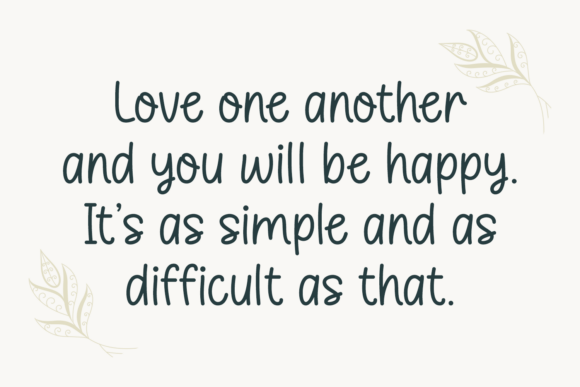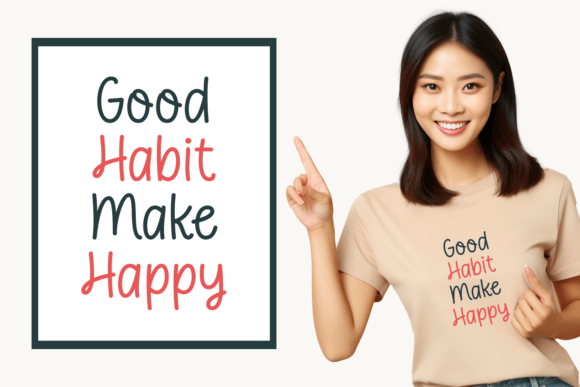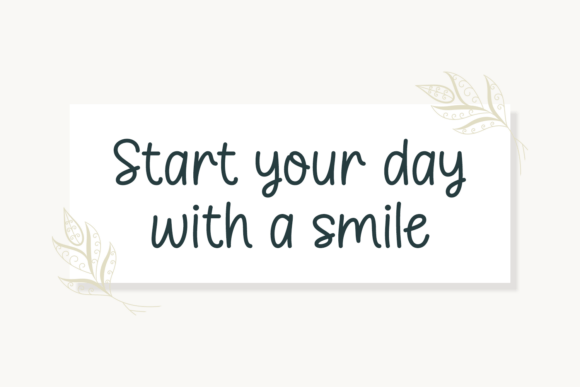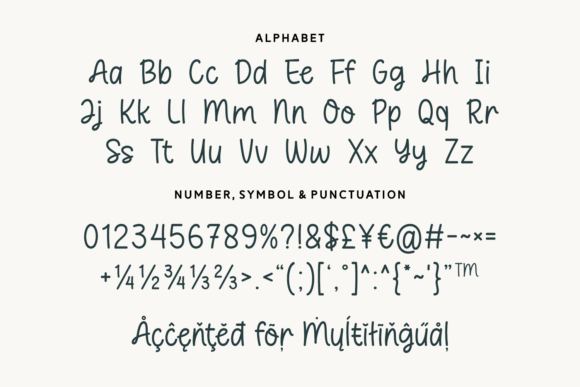
Introduction to Honey Action Font
Sweeten Your Designs with Honey Action Bring a touch of organic warmth and playful charm to your creative projects with Honey Action, a cute handwritten font designed to feel as natural as a pen on paper.
With its soft, rounded strokes and effortless flow, this typeface captures a whimsical, “bubbly” aesthetic that is both modern and incredibly approachable Whether you are crafting eye-catching social media graphics, designing heartfelt greeting cards, or building a brand identity that feels personal and friendly, Honey Action provides the perfect balance of readability and hand-drawn character.
Key Features of Honey Action Font
Why Choose Honey Action Font?